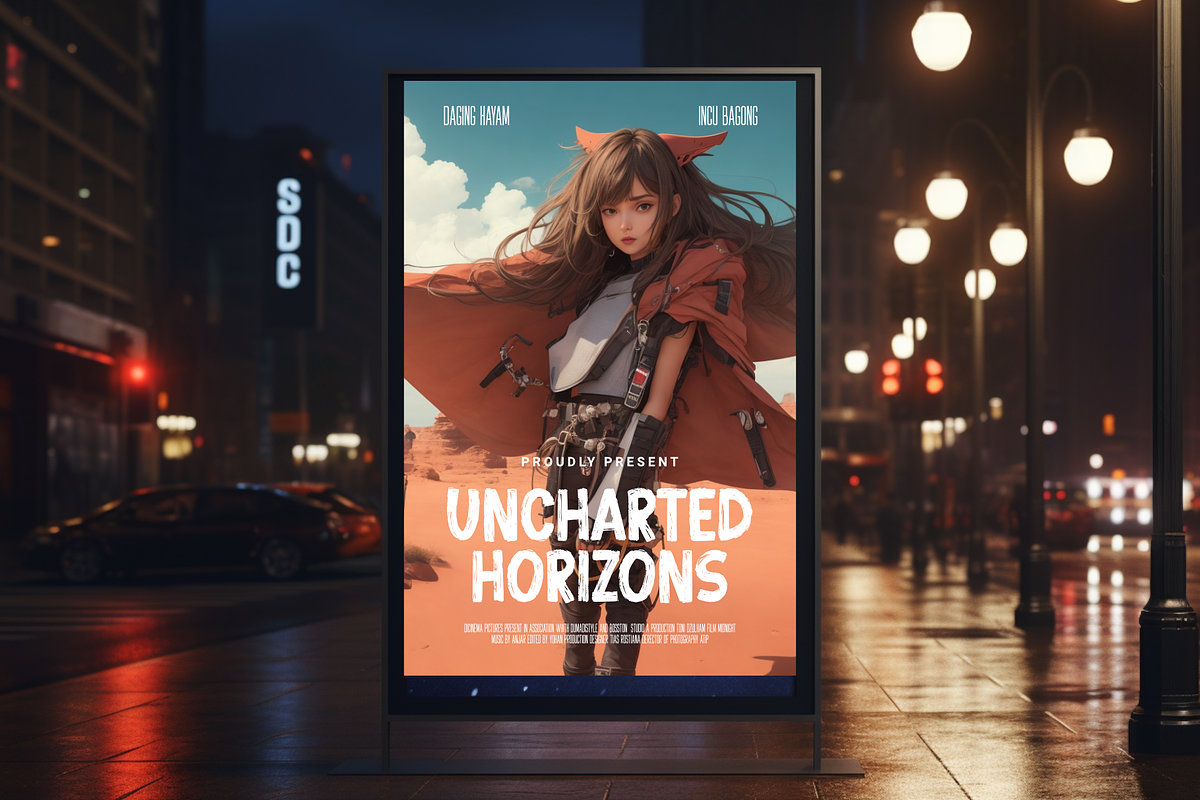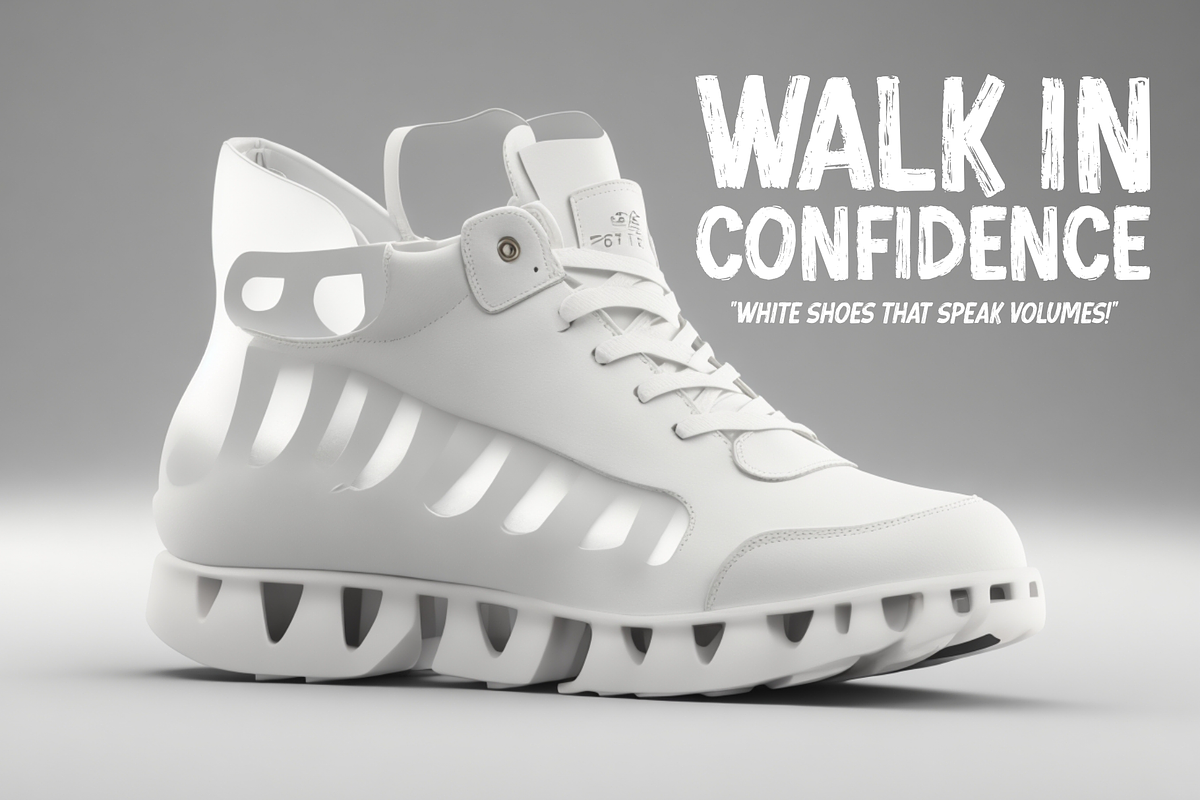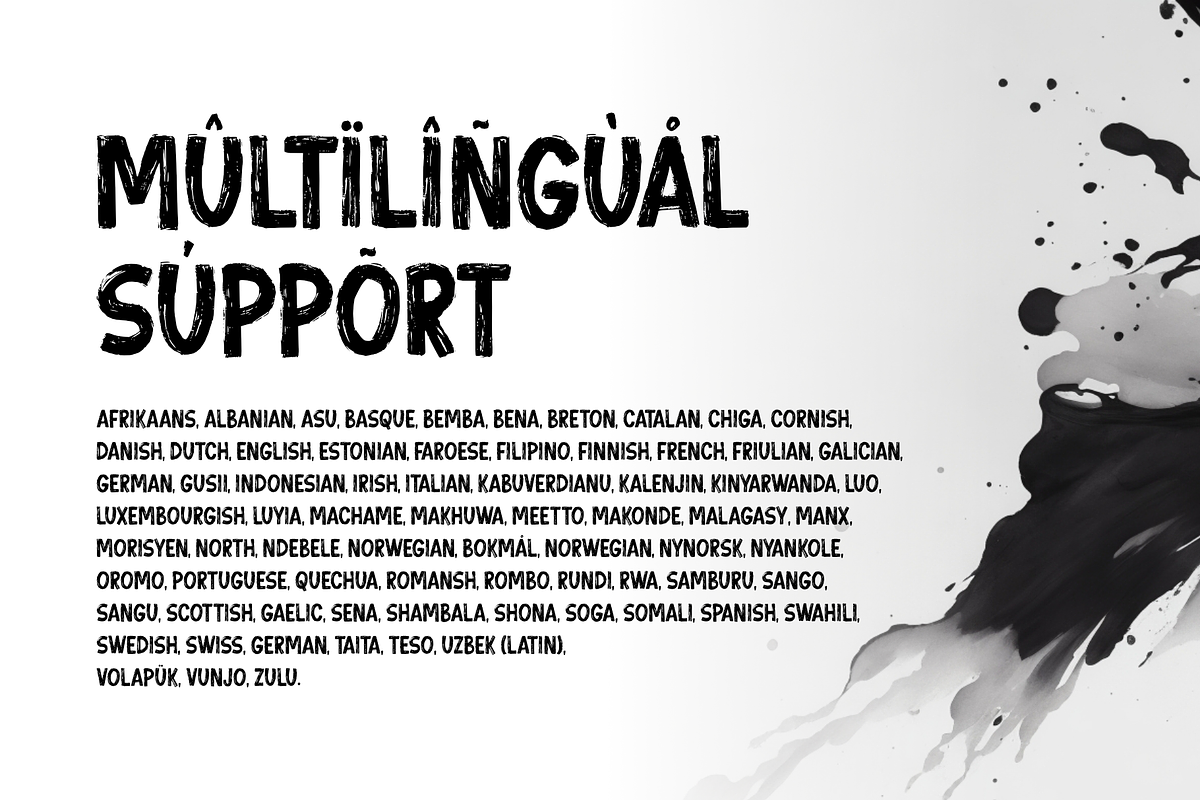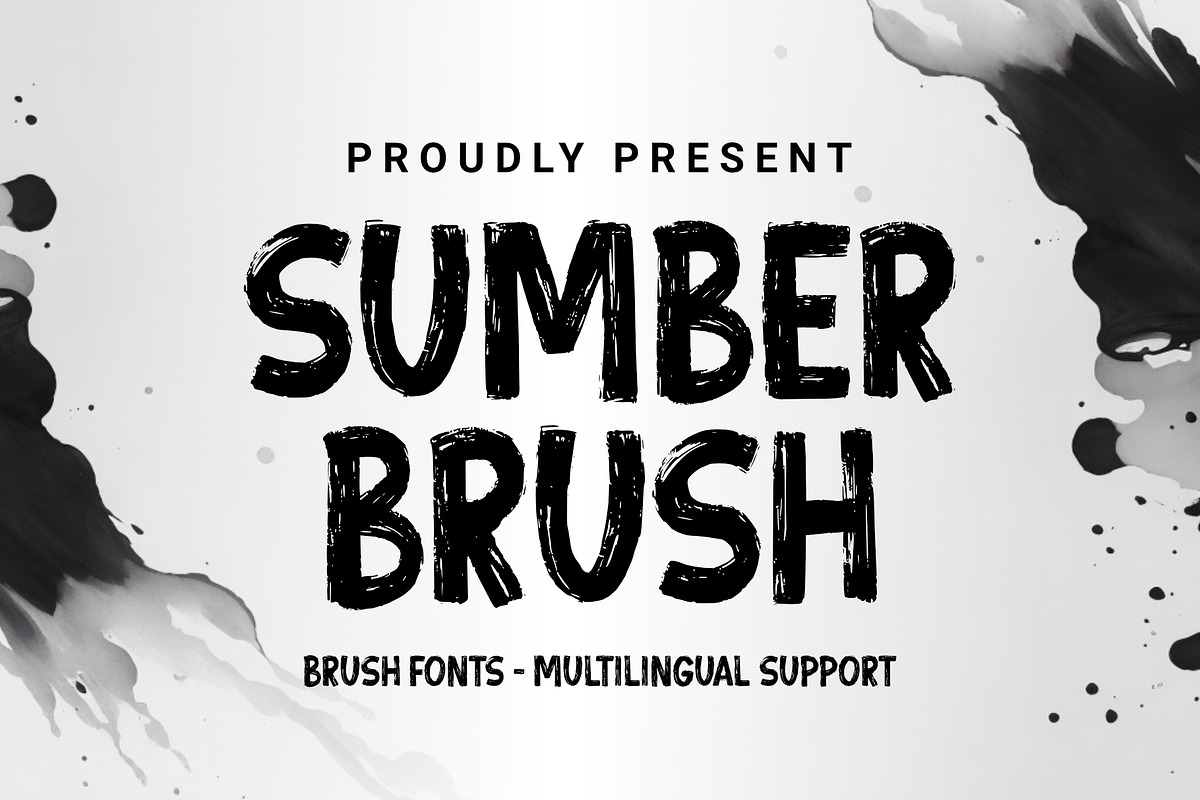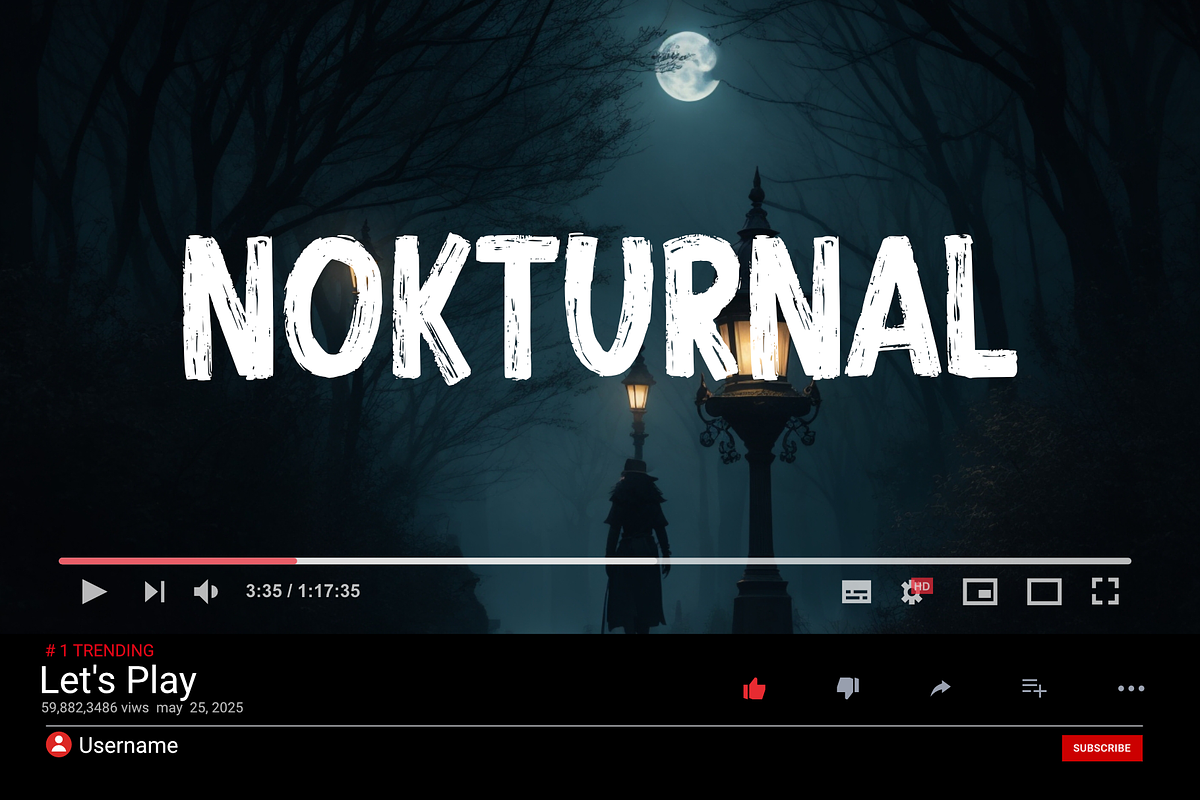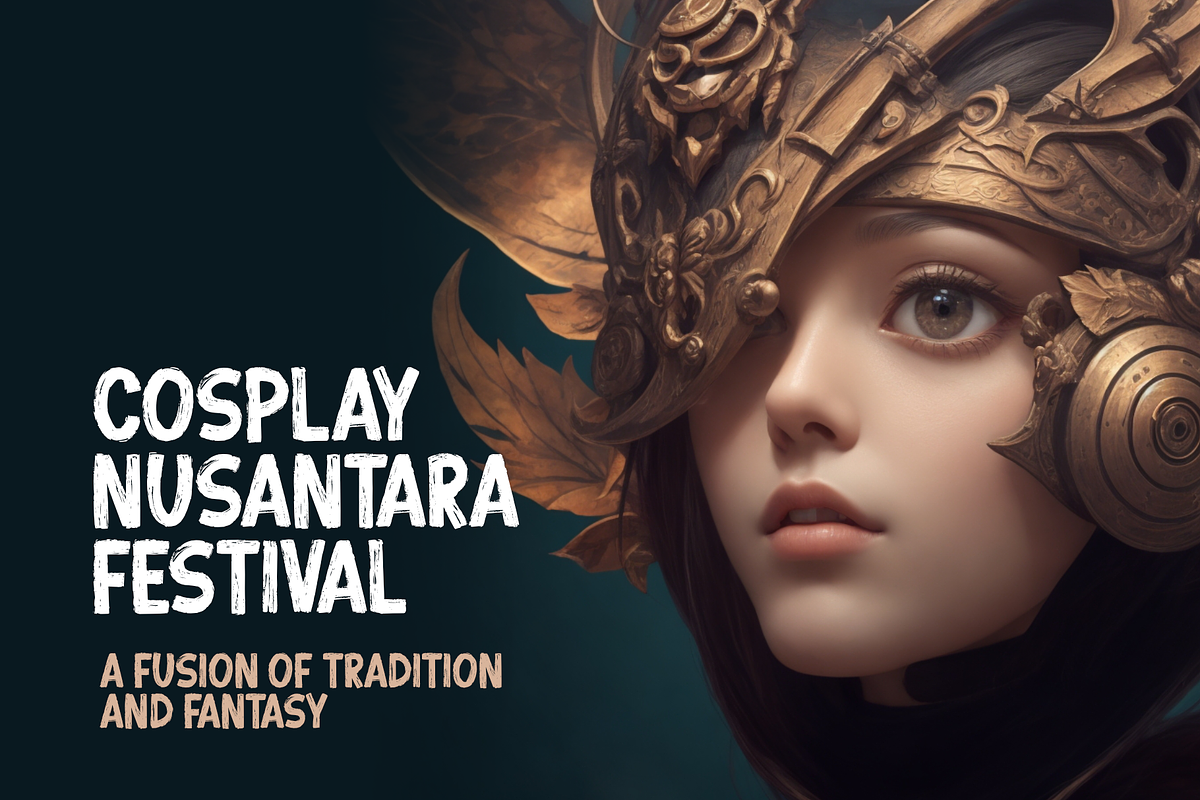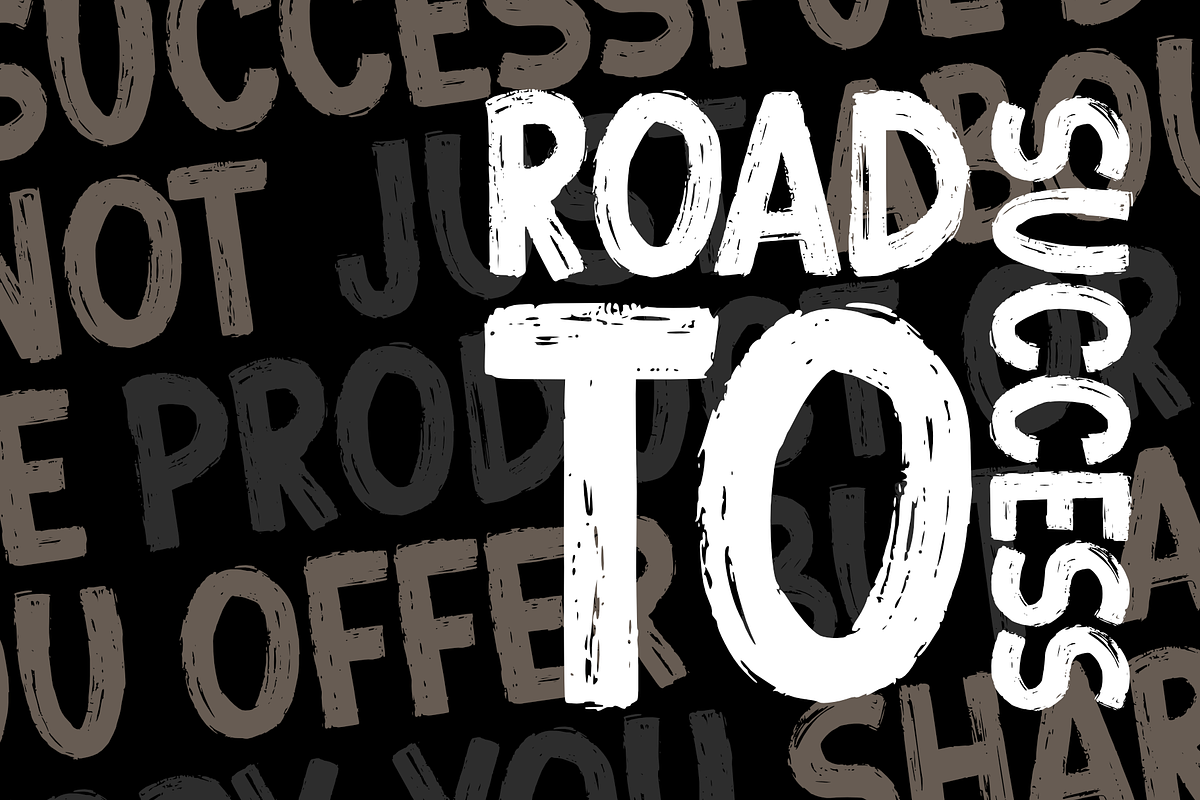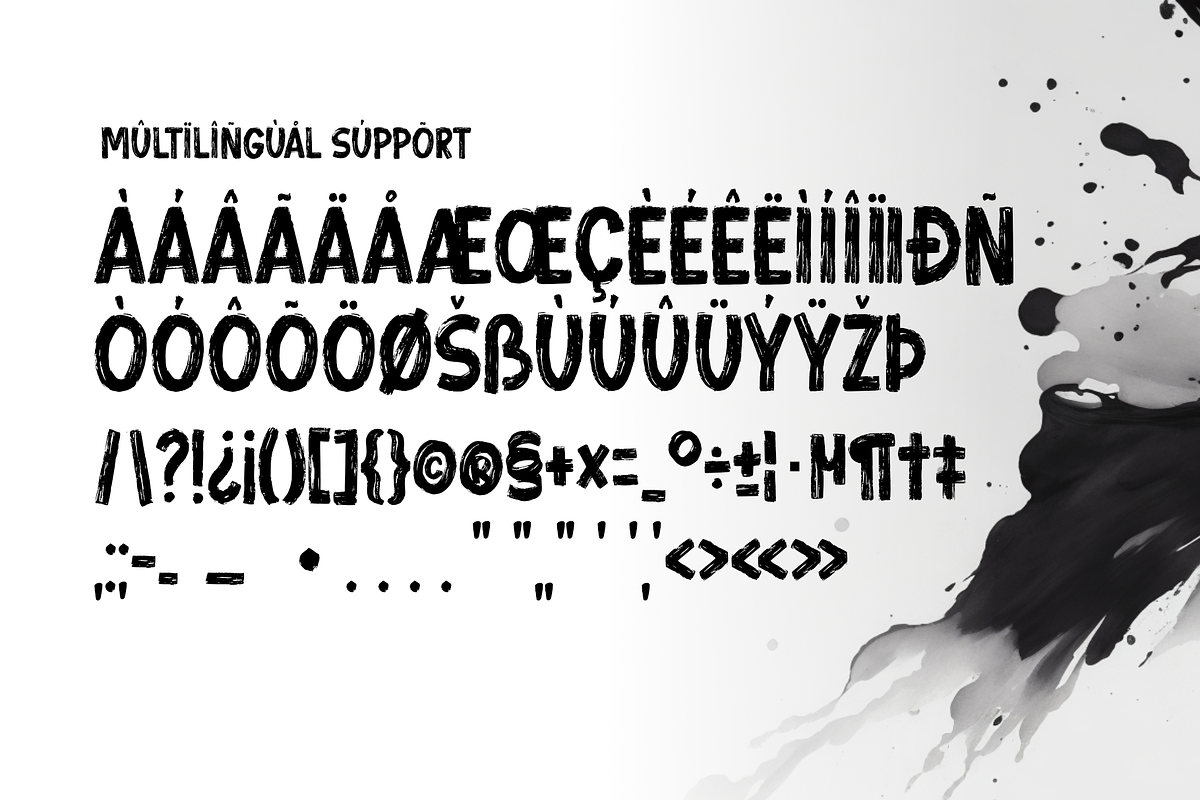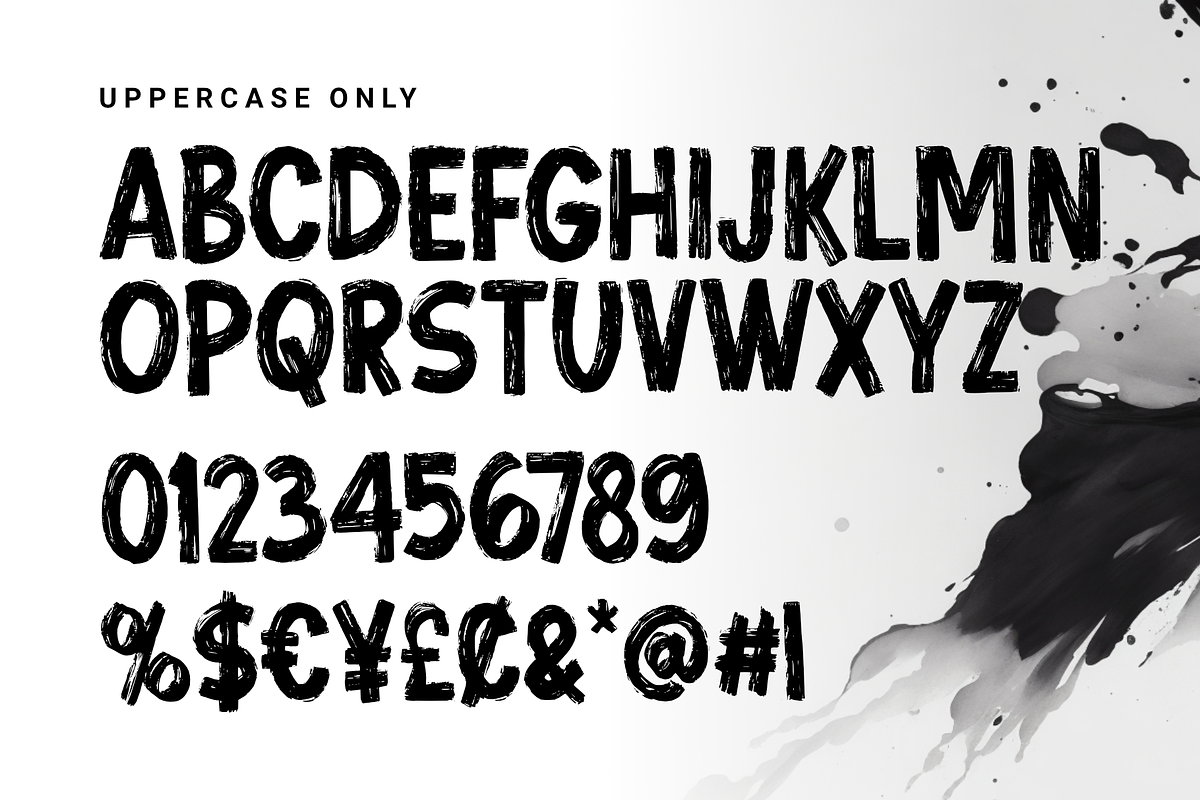
Sumber Brush
Sumber Brush is a font that blends boldness and sophistication in its design. With a firm and robust demeanor, each uppercase letter stands out with strong characteristics that define a creative and expressive style. Tailored specifically for graphic designers, this font imparts a unique and classy textural feel.
The pronounced brush texture adds an artistic touch to every character, creating the impression that each letter is passionately crafted with a brushstroke. Sumber Brush brings forth courage in every line and curve, resulting in a visually stunning and dynamic aesthetic. By featuring only uppercase letters, Sumber Brush emphasizes strength and elegance, directing attention to boldness and creativity. This font is ideal for graphic projects that require a strong and captivating statement, such as posters, logos, merchandise designs, and various other applications. Sumber Brush is not just a typeface; it's a creative tool empowering designers to express their ideas with a distinctive flair. With a visual blend of boldness, creativity, and elegance, Sumber Brush becomes the perfect choice for graphic designers aiming to infuse a unique artistic touch into their work.
- UPPERCASE ONLY
- Multilingual Accent
This Font Support Languages : Afrikaans, Albanian, Asu, Basque, Bemba, Bena, Breton, Catalan, Chiga, Cornish, Danish, Dutch, English, Estonian, Faroese, Filipino, Finnish, French, Friulian, Galician, German, Gusii, Indonesian, Irish, Italian, Kabuverdianu, Kalenjin, Kinyarwanda, Luo, Luxembourgish, Luyia, Machame, Makhuwa, Meetto, Makonde, Malagasy, Manx, Morisyen, North, Ndebele, Norwegian, Bokmål, Norwegian, Nynorsk, Nyankole, Oromo, Portuguese, Quechua, Romansh, Rombo, Rundi, Rwa, Samburu, Sango, Sangu, Scottish, Gaelic, Sena, Shambala, Shona, Soga, Somali, Spanish, Swahili, Swedish, Swiss, German, Taita, Teso, Uzbek (Latin), Volapük, Vunjo, Zulu.